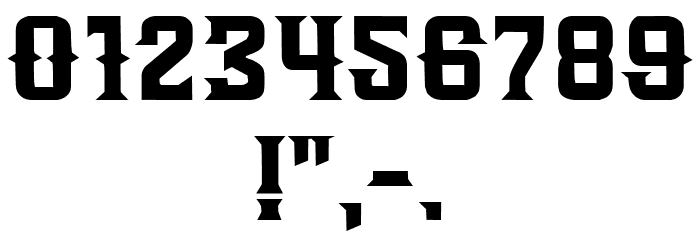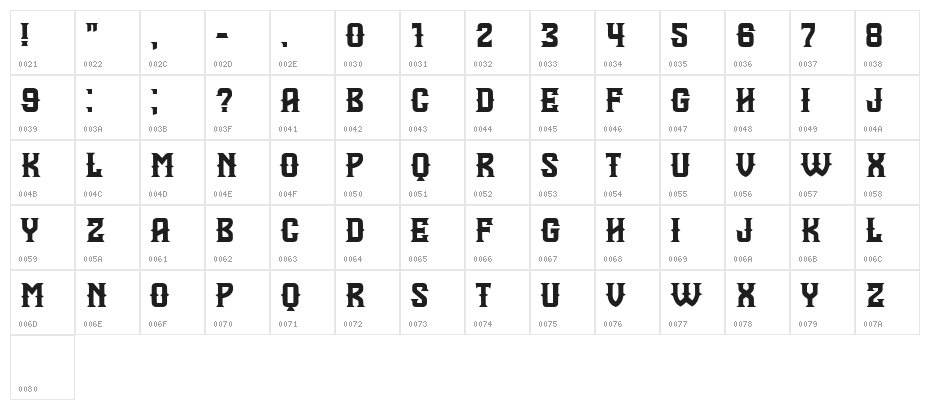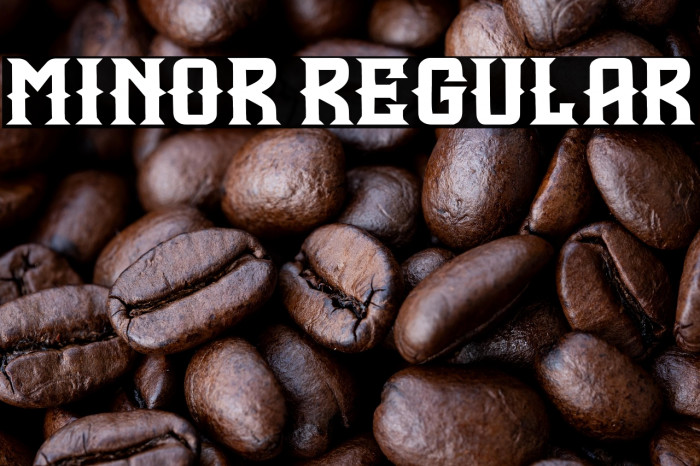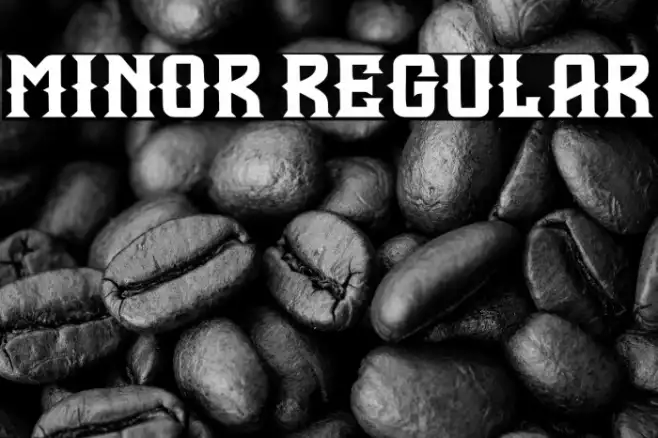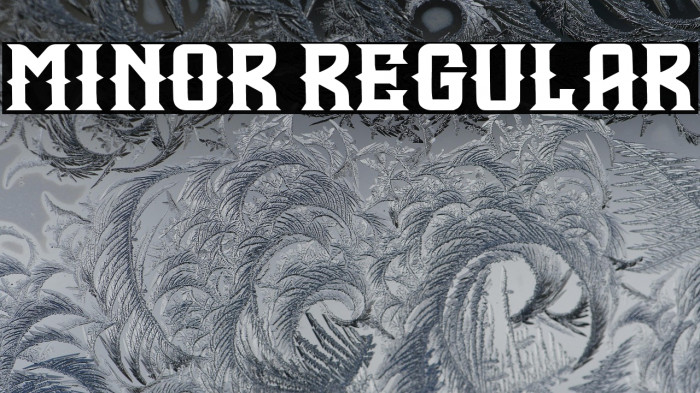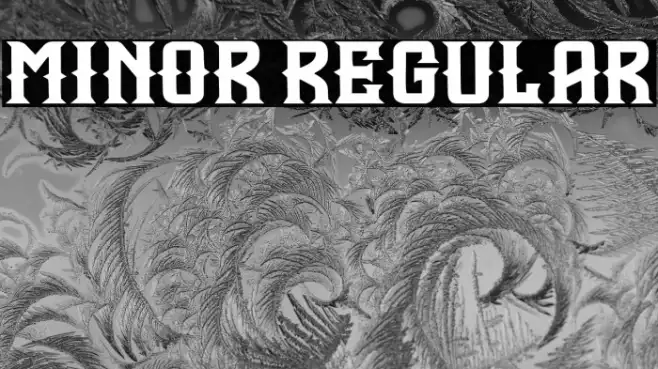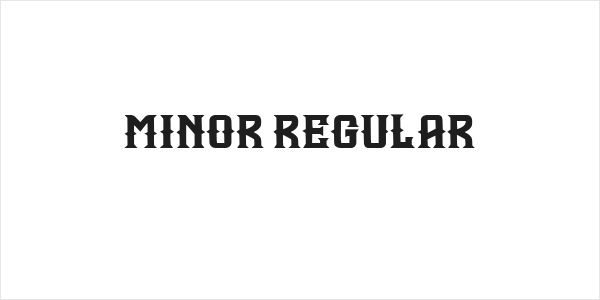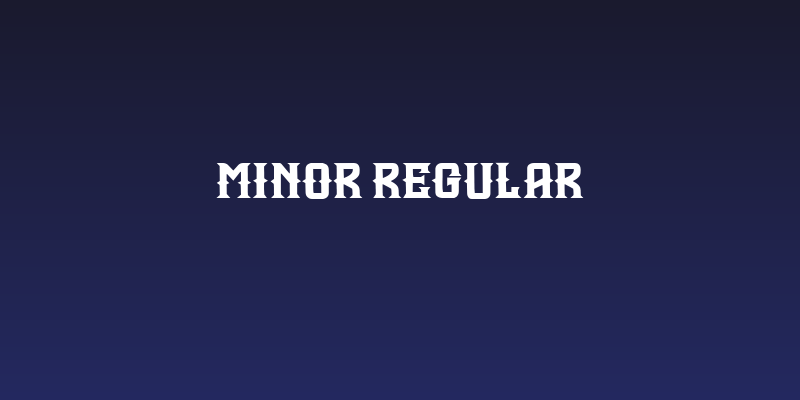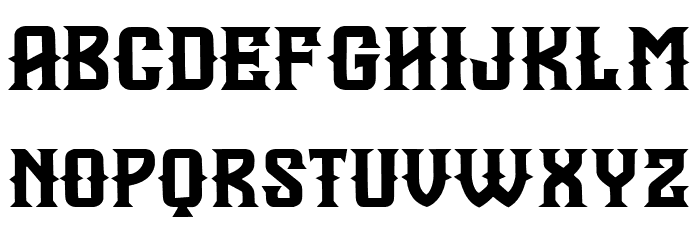
Minor Regular Font
Minor Regular Description
This font features a bold and striking design with a strong presence. The characters are crafted with sharp, angular edges and a distinct geometric style that gives it a modern yet slightly vintage feel. The uppercase letters are particularly prominent, with a uniform height and width that create a cohesive look. The numbers and special characters maintain the same boldness, ensuring consistency across all elements. This font's unique style makes it suitable for attention-grabbing headlines and impactful designs.
| Overall Style | Modern, Vintage |
| Proposed Projects | Ideal for branding, posters, and signage where a strong visual impact is needed. |